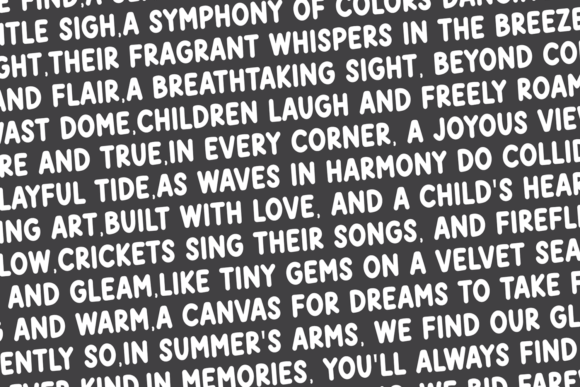
Good Vibes Font
Good Vibes is a bold marker handwriting font. It looks like it was written with a thick marker, giving it a casual and friendly feel. This font is great for adding a personal touch to your projects, making them look fun and lively.